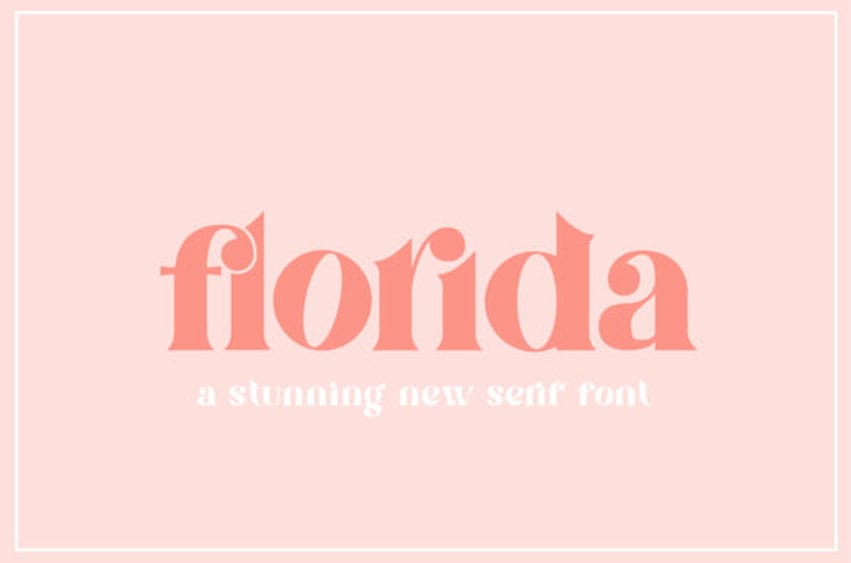
Florida Font is a cool and thick lettered serif font. Featuring the perfect amount of trendiness, this font will make each of your designs come to life.
Florida is PUA encoded which means you can access all of the glyphs and swashes with ease!